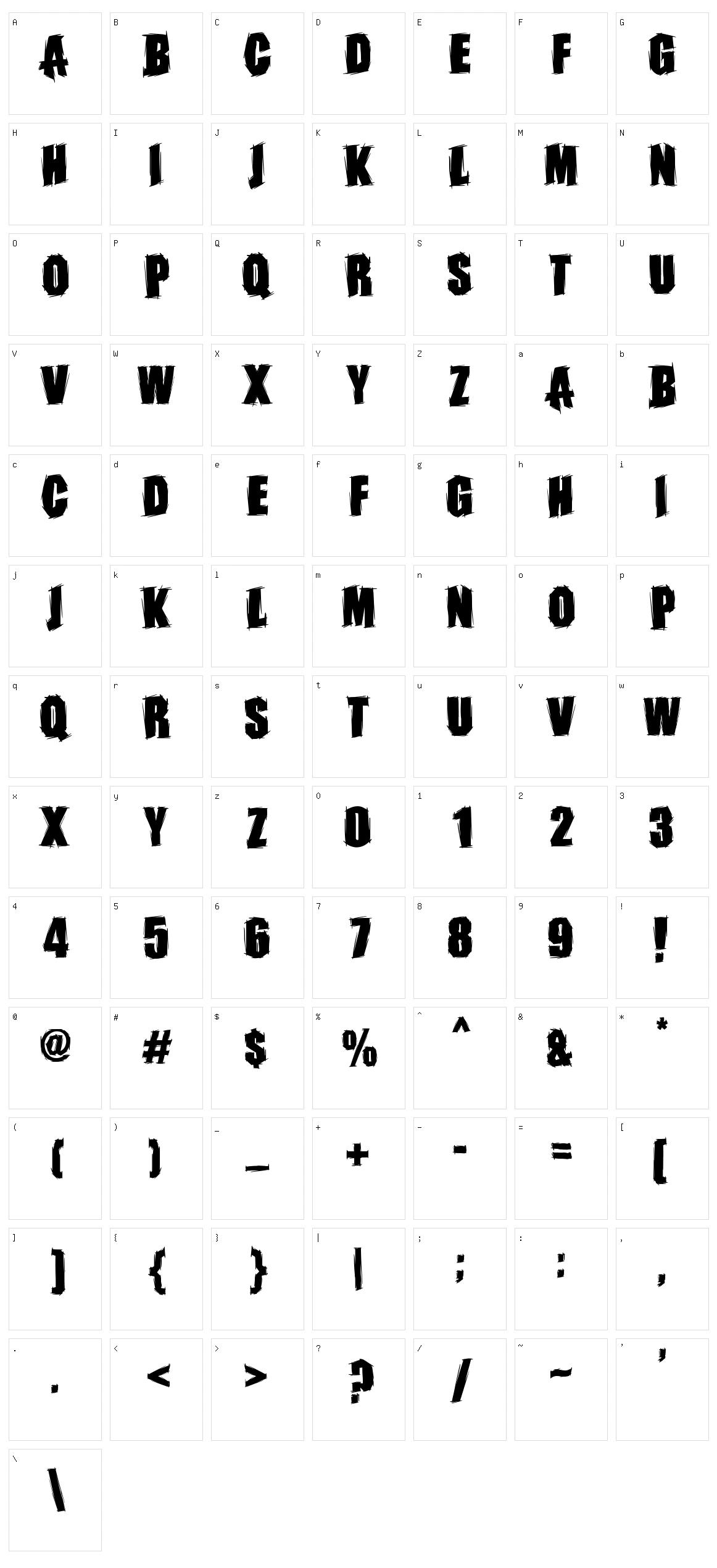
The free font Ghost Armor is carefully designed by Creakokun Studio, showcasing a thoughtful balance of creativity and usability and falls under the Horror font style. When you download the ZIP file, it contains only 41.89 KB of font files, making it lightweight and quick to download. Please review the license details below to understand permitted usage and distribution rights. If license information is not available, we recommend using this font for personal projects only or contacting the author directly for commercial usage permissions.